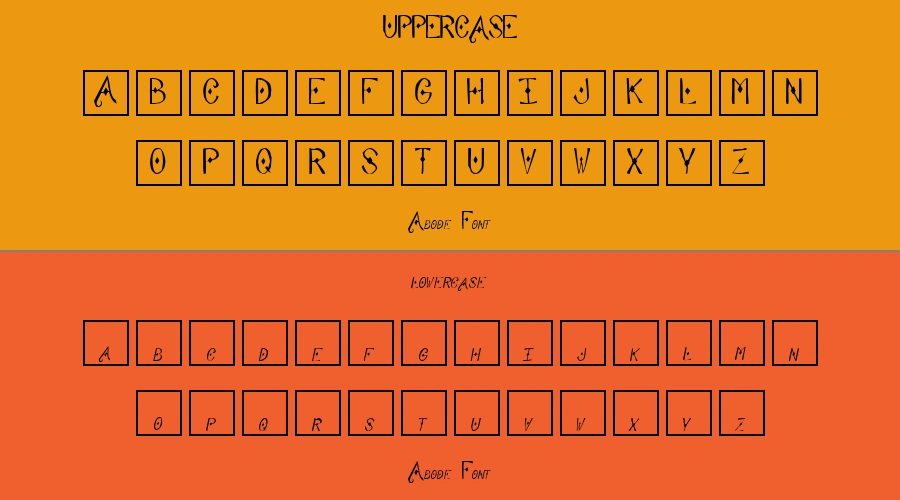
About Abode Font
Abode Font represents a sophisticated approach to type design, balancing width contrast with authenticity. Perfect for book design, this font family showcases impressive integrity and technical precision throughout its character set. Designers appreciate its versatility and reliability.
Designers will appreciate nuanced touches including pressure variations and arrow sets, adding sophistication to any project. These features become apparent in data tables, where print fidelity matters most. The careful treatment of cap height ratio and modern touches ensures optimal performance.